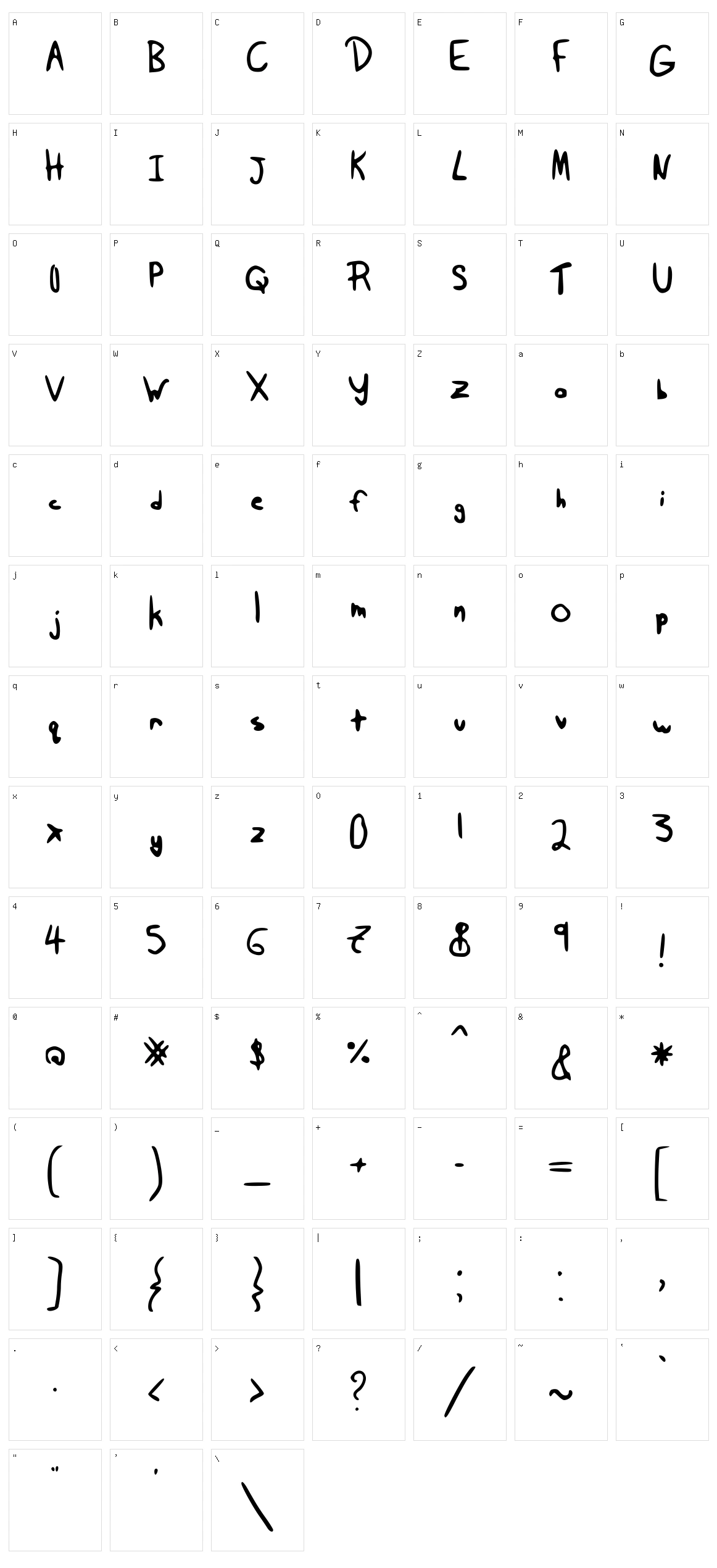
The free font Taira K.'s Messynezz is carefully designed by Taira Kurasshu, showcasing a thoughtful balance of creativity and usability and falls under the Script font style. When you download the ZIP file, it contains only 17.69 KB of font files, making it lightweight and quick to download. Please review the license details below to understand permitted usage and distribution rights. If license information is not available, we recommend using this font for personal projects only or contacting the author directly for commercial usage permissions.